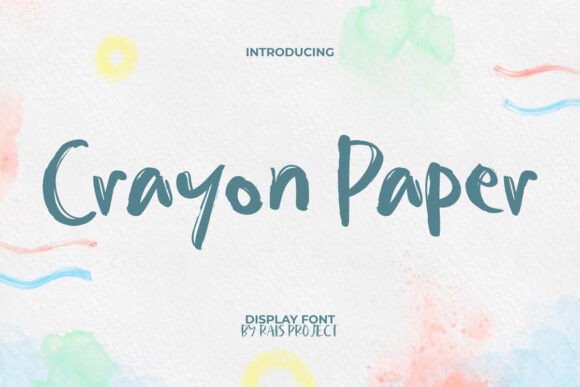
Crayon Paper Font: Add a Touch of Whimsy to Your Designs
In the world of typography, fonts play a crucial role in conveying the tone and personality of a brand or design. If you’re looking for a font that exudes excitement, playfulness, and creativity, look no further than Crayon Paper Font. This delightful font is designed to bring a smile to your face and add a touch of whimsy to your designs.
What is Crayon Paper Font?
Crayon Paper Font is an exhilarating, playful sketch brush display font with a fun theme. Its unique design is reminiscent of colorful crayon drawings on paper, making it perfect for designs that require a dash of creativity and imagination. This font is sure to give excited energy to anyone who sees it, making it an excellent choice for a wide range of design projects.
Characteristics of Crayon Paper Font
Crayon Paper Font boasts several characteristics that make it an excellent addition to your design toolkit. Some of its notable features include:
- Playful and whimsical design: The font’s crayon-inspired design gives it a playful and whimsical feel that’s perfect for designs that require a touch of fun and creativity.
- Exhilarating and energetic: The font’s bold and vibrant design is sure to grab attention and convey a sense of excitement and energy.
- Versatile: Crayon Paper Font can be used for a wide range of design projects, from advertisements and brand images to business cards and product packaging.
Use Cases for Crayon Paper Font
Crayon Paper Font is an incredibly versatile font that can be used for various design projects. Here are some use cases where this font can shine:
- Advertisements: Add a touch of playfulness to your ads and make them stand out with Crayon Paper Font.
- Brand image: Use this font to create a fun and approachable brand image that resonates with your target audience.
- Business cards: Make a lasting impression with Crayon Paper Font on your business cards.
- Cover designs: Add a pop of color and creativity to your book or magazine covers with this font.
- Custom designs: Use Crayon Paper Font to create unique and eye-catching custom designs for various applications.
- Invitations: Make your invitations stand out with the playful and whimsical design of Crayon Paper Font.
- Labels and menus: Use this font to create fun and colorful labels and menus that add to the overall brand experience.
- Posters and flyers: Create eye-catching posters and flyers with Crayon Paper Font that grab attention and convey your message.
- Product packaging: Add a touch of whimsy to your product packaging with this font and make your products stand out on store shelves.
- Quote designs: Use Crayon Paper Font to create inspiring and visually appealing quote designs.
- Website pages: Add a playful touch to your website pages with Crayon Paper Font and create a memorable user experience.
Benefits of Using Crayon Paper Font
Using Crayon Paper Font in your designs offers several benefits, including:
- Unique and creative designs: This font allows you to create unique and creative designs that stand out from the crowd.
- Emotional connection: The playful and whimsical design of Crayon Paper Font can help create an emotional connection with your target audience.
- Versatility: This font can be used for various design projects, making it an excellent addition to your design toolkit.
- Attention-grabbing: The bold and vibrant design of Crayon Paper Font is sure to grab attention and convey your message effectively.
Tips for Using Crayon Paper Font Effectively
To get the most out of Crayon Paper Font, here are some tips to keep in mind:
- Use it sparingly: While Crayon Paper Font is a beautiful font, it’s best to use it sparingly to avoid overwhelming your design.
- Pair it with complementary fonts: Pair Crayon Paper Font with complementary fonts to create a harmonious and visually appealing design.
- Experiment with colors: The font’s playful design lends itself well to bright and bold colors, so don’t be afraid to experiment and find the perfect color scheme for your design.
- Consider your audience: While Crayon Paper Font is playful and fun, it may not be suitable for all audiences. Consider your target audience and adjust your font choice accordingly.
Crayon Paper Font is a unique and creative font that can add a touch of whimsy to your designs. Its playful and exhilarating design makes it perfect for a wide range of design projects, from advertisements and brand images to business cards and product packaging. By using Crayon Paper Font effectively and following the tips outlined above, you can create designs that stand out and leave a lasting impression on your target audience.